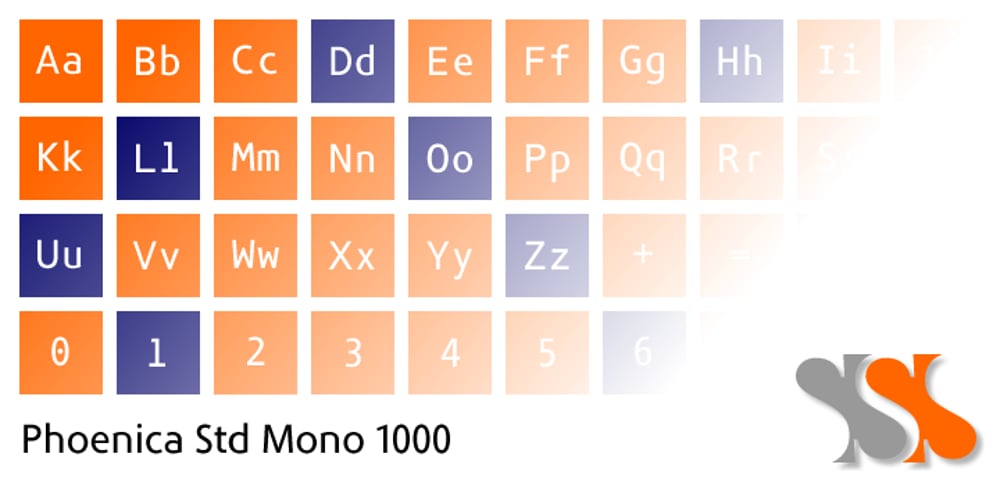
Phoenica Std Mono
Phoenica Std Mono font
Phoenica Std Mono Font Family was designed by Ingo Preuss and published by preussTYPE. Phoenica Std Mono contains 21 styles and family package options. Phoenica Std Mono expands the already large family of my very successful Phoenica. The motivation to develop a new mono-Phoenica family was that I was not satisfied with monospaced fonts in programming code, or simply in e-mail correspondence. The Mono Phoenica solves the problem of a typical monospaced font, a rigid, fixed width. The design gradations from Condensed monospaced to monospaced from 390em to 600em-square incurred a total of 21 fonts. Packages contain the fonts in CFF-OpenType and TrueType format, so you can use these beautiful fonts on all operating systems.